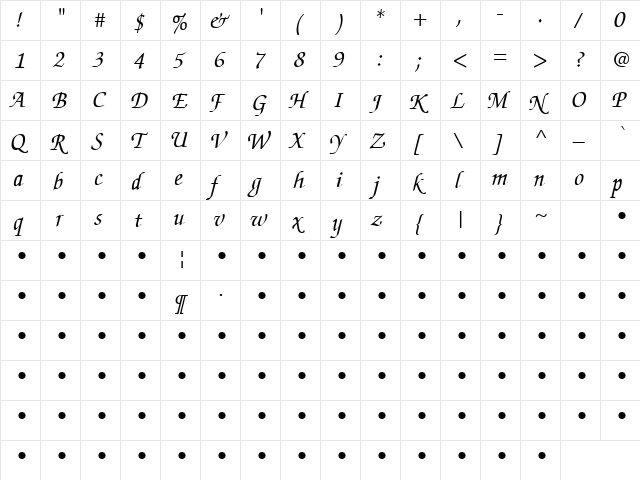
QTChanceryType Italic
Design Context for QTChanceryType Typeface
QTChanceryType is a composed and adaptable typeface that performs quietly and consistently across a wide range of design contexts. Its italic angle brings a sense of urgency and motion to the letterforms.